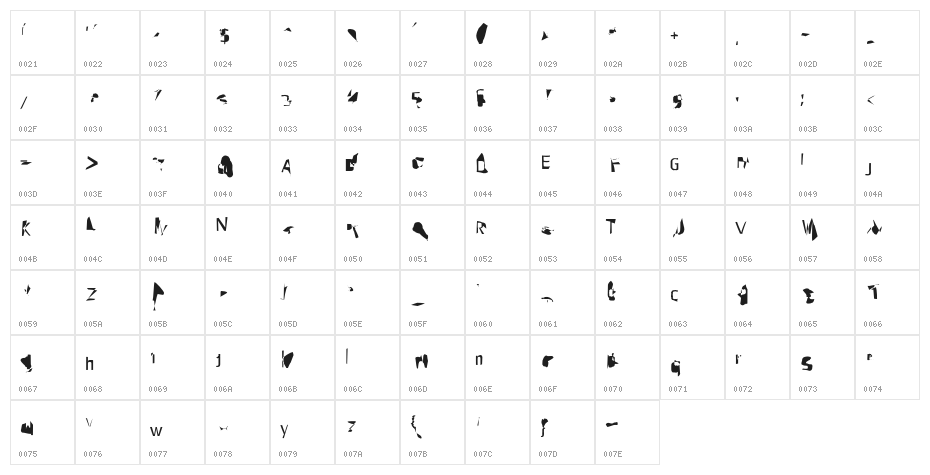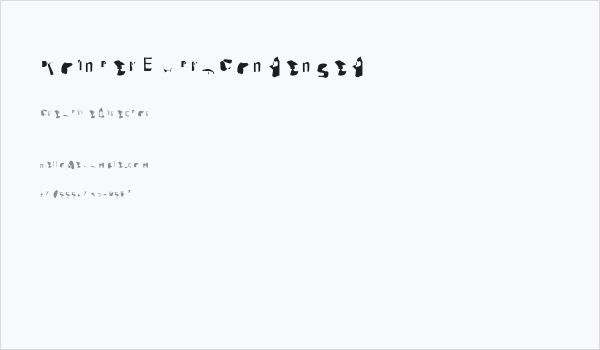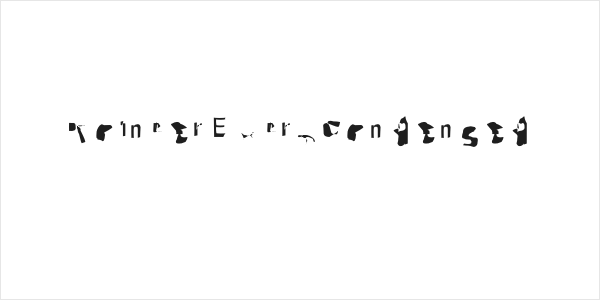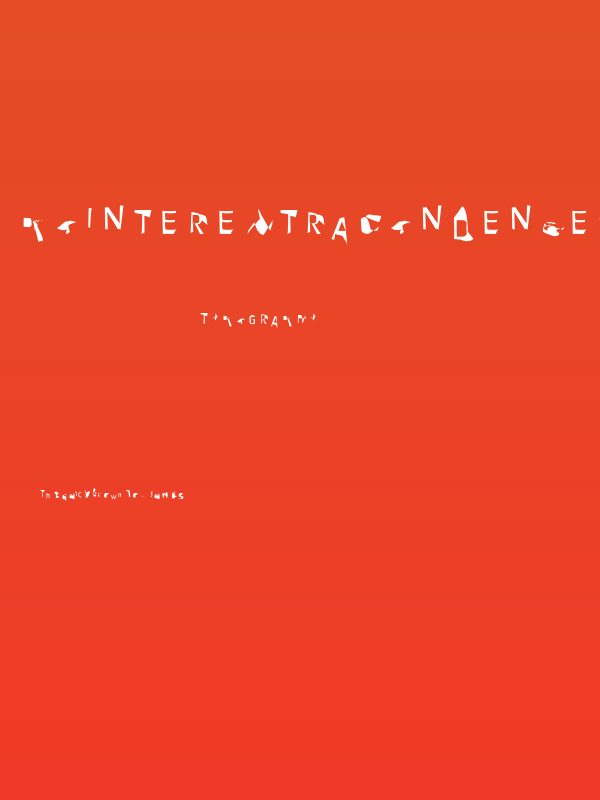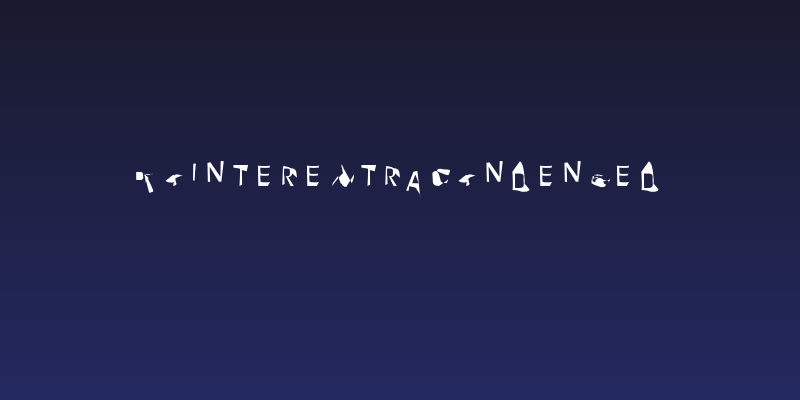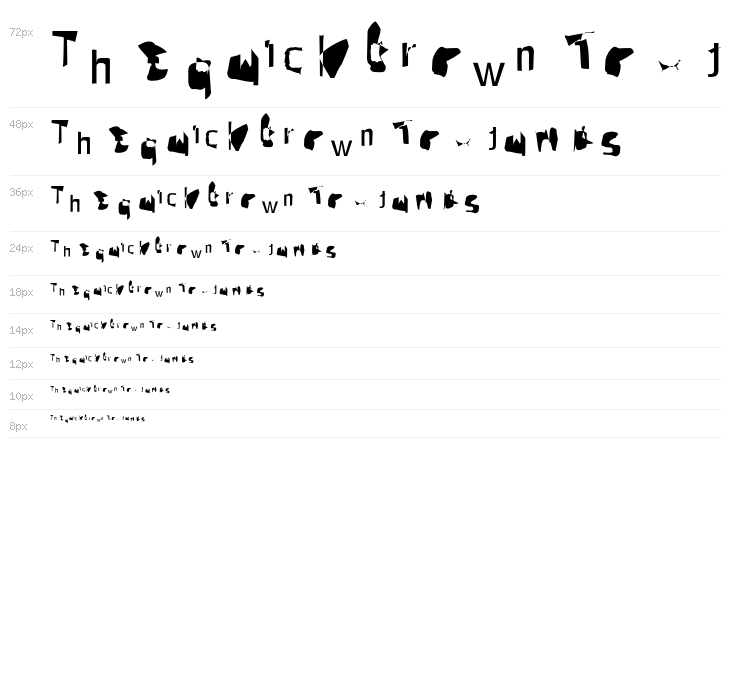
Pointer ExtraCondensed Font
Pointer ExtraCondensed Description
This font exhibits a highly abstract and fragmented style, characterized by its sharp, jagged edges and irregular shapes. The characters appear as if they have been shattered or distorted, creating a chaotic yet intriguing visual effect. The font maintains a consistent level of distortion across all characters, making it unique and eye-catching. Its extreme condensed nature adds to the overall impact, giving it a sense of urgency and movement. This font is not suitable for body text due to its challenging readability but serves as a striking choice for artistic and experimental designs.
| Width | Condensed |
| Overall Style | Modern, Abstract |
| Use Case | Logos, Posters, Artistic Designs |
| Proposed Projects | Ideal for experimental art projects, edgy graphic designs, and avant-garde posters. |